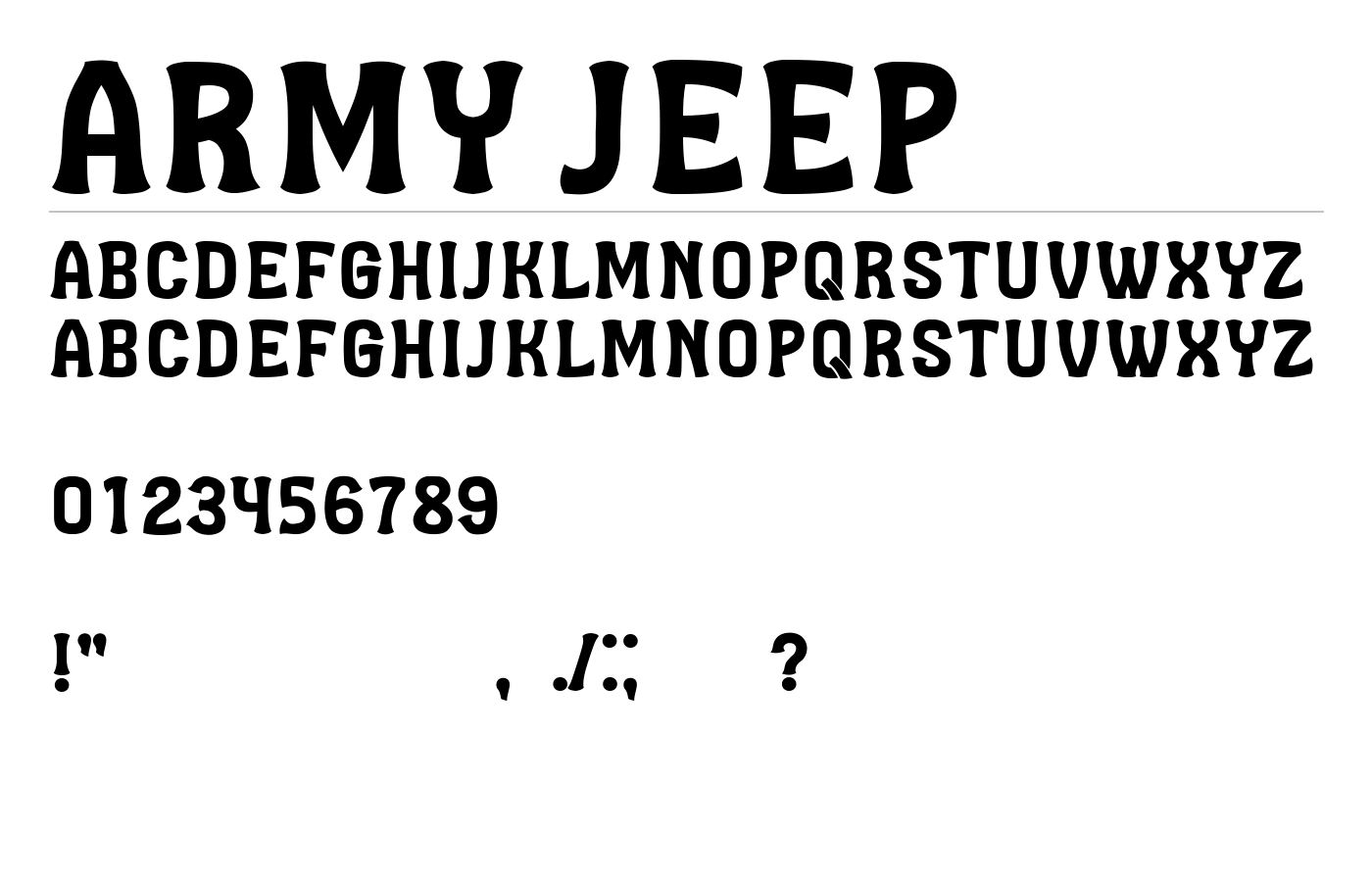
Army Jeep is a bold, condensed serif font with a vintage, rugged feel. Its sturdy letters feature thick, uneven serifs and playful curves, evoking a nostalgic, military-inspired style that works great for posters, branding, and designs seeking a strong, adventurous character. This font’s distinct personality shines in headlines and logos, delivering a classic yet approachable look.
Army Jeep Font
About Army Jeep Font
| Font family | Army Jeep Font |